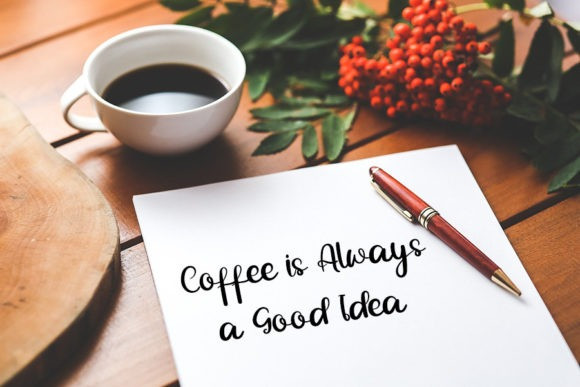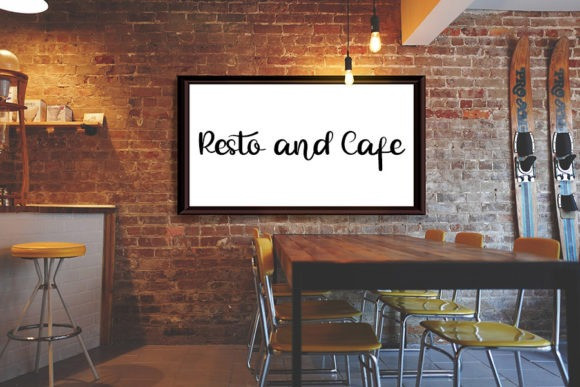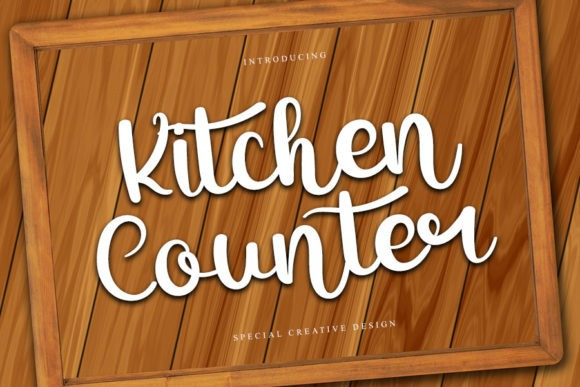
Kitchen Counter Font
Kitchen Counter Script Font is a stylish handwritten font with a contemporary atmosphere and impeccable form, inspired by timeless classic calligraphy. Not too thin and not too thick, balanced and varied, this font was designed to enhance the beauty of your projects.